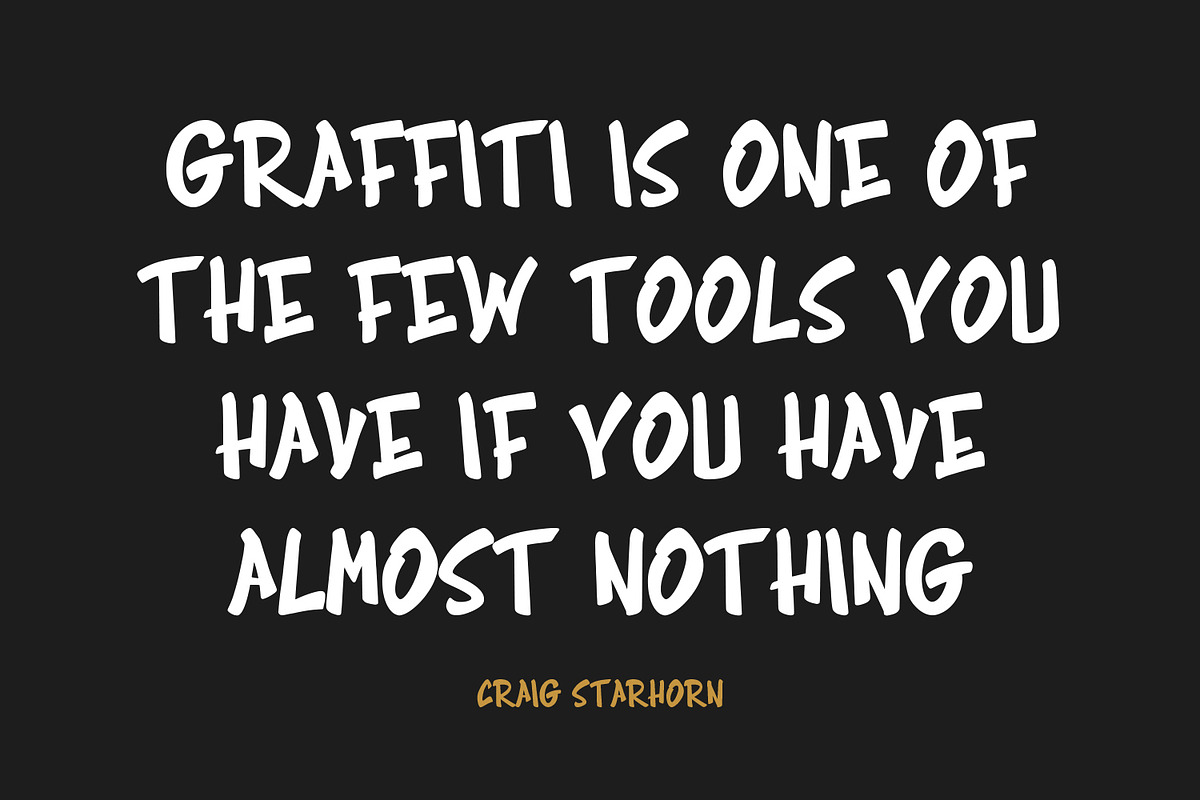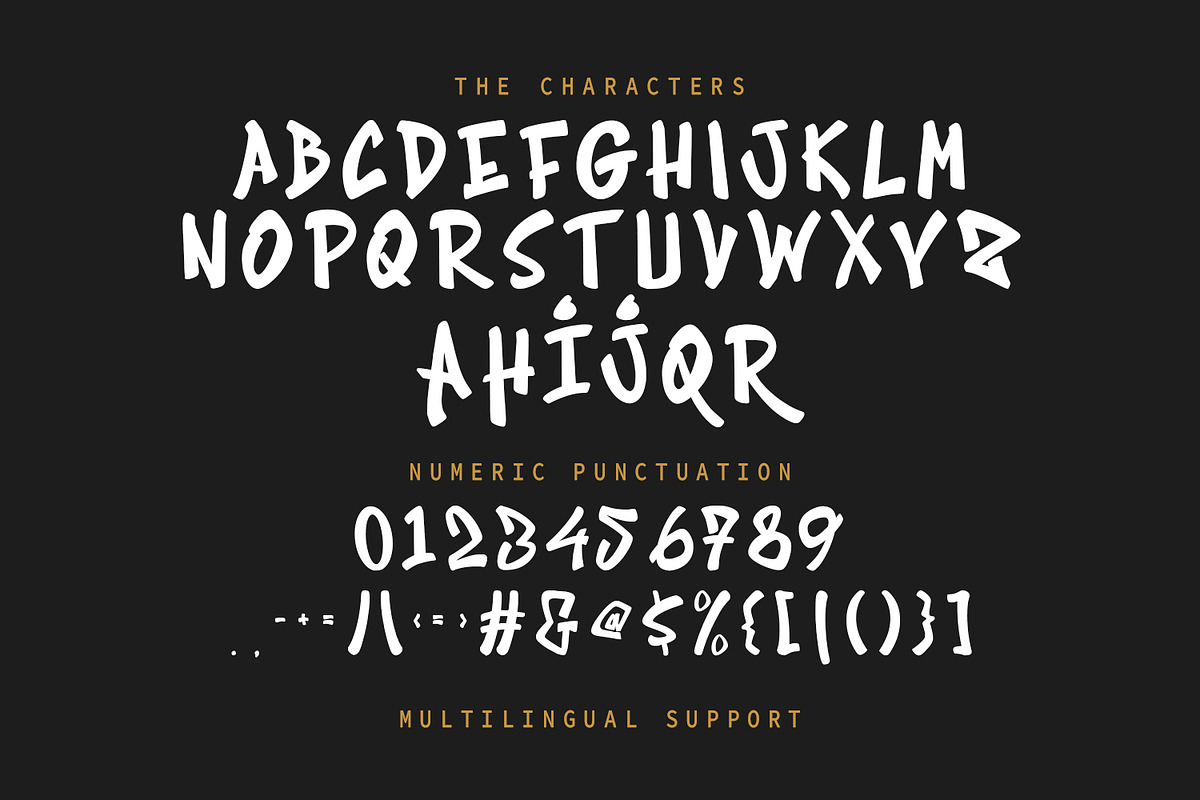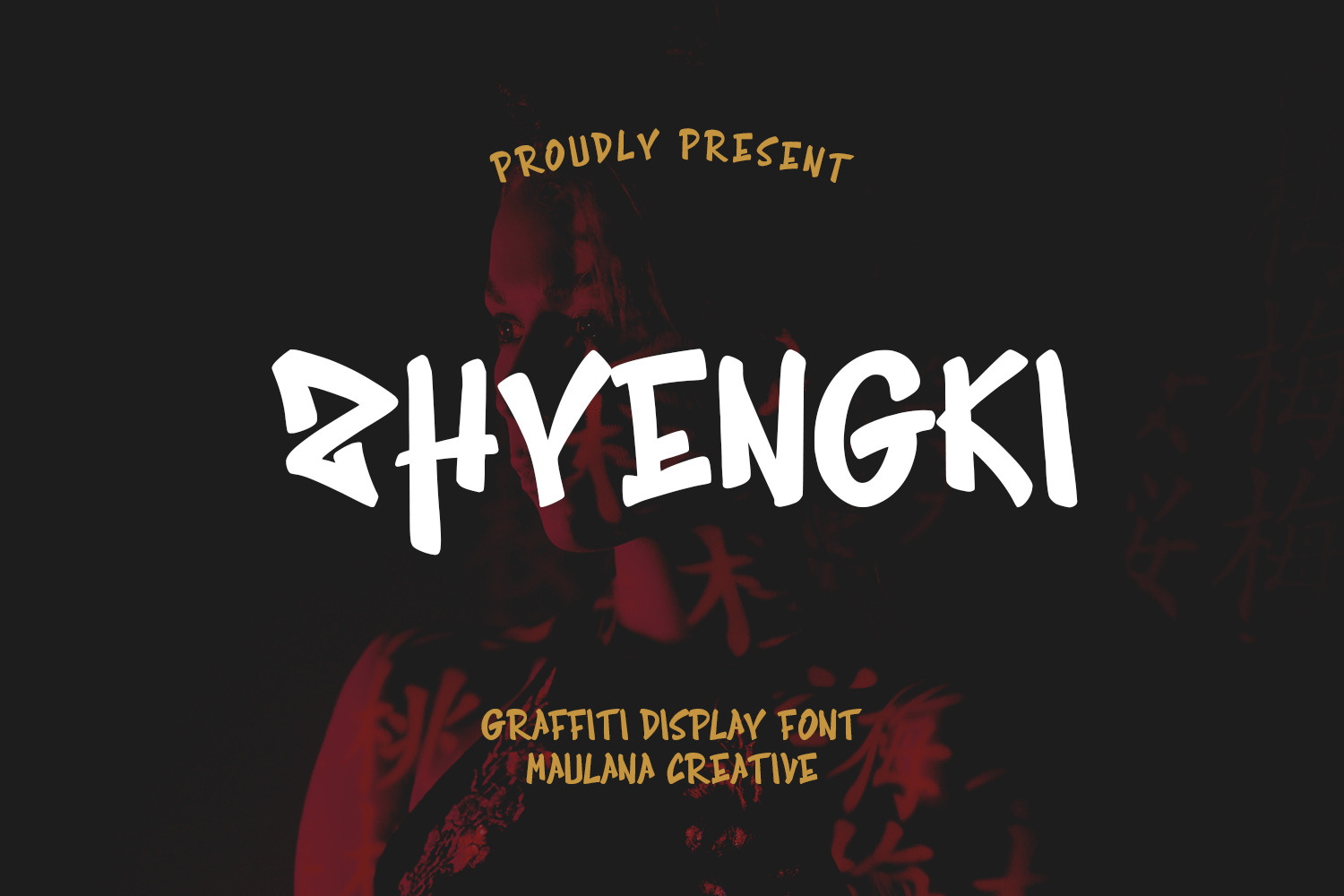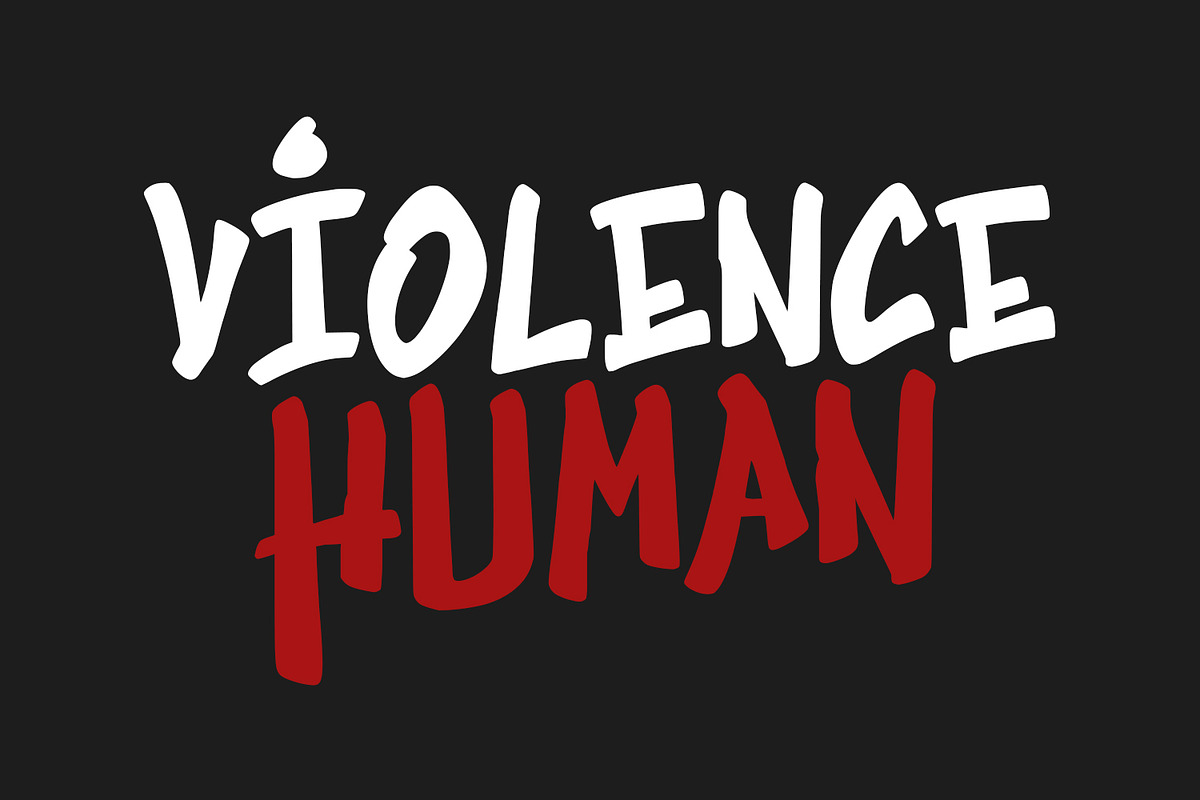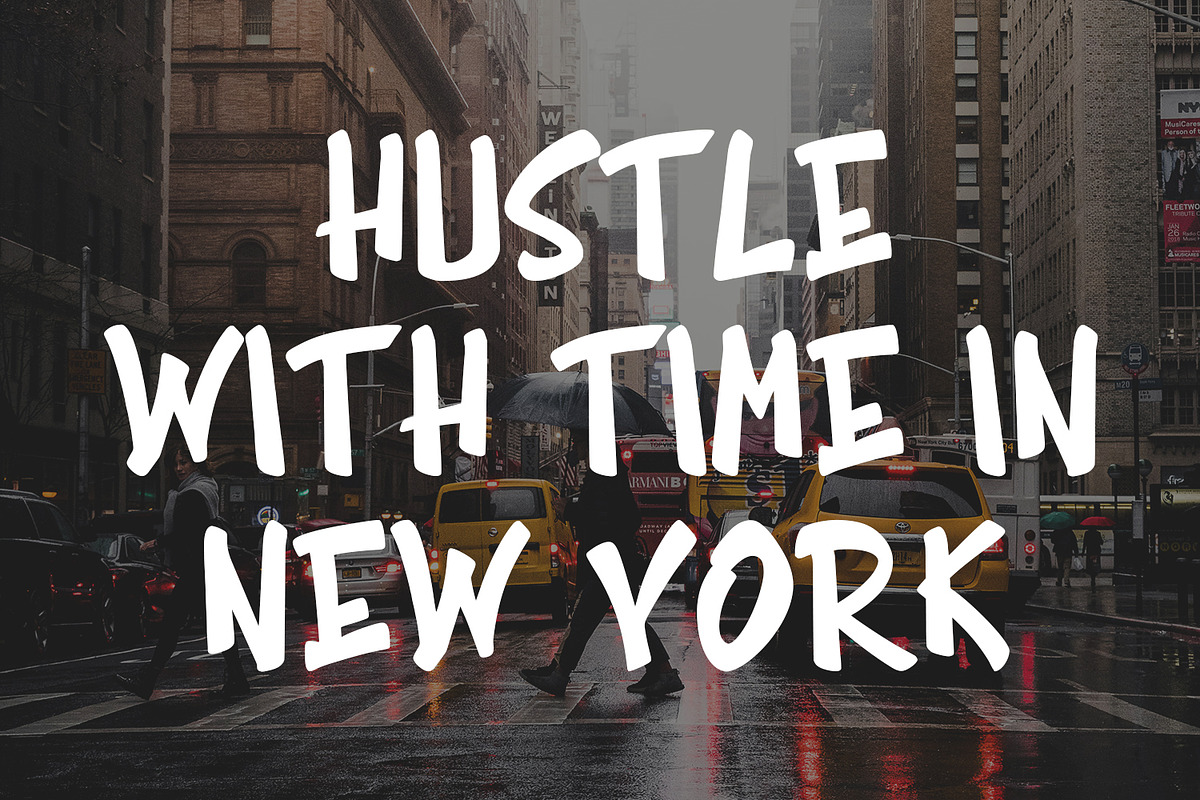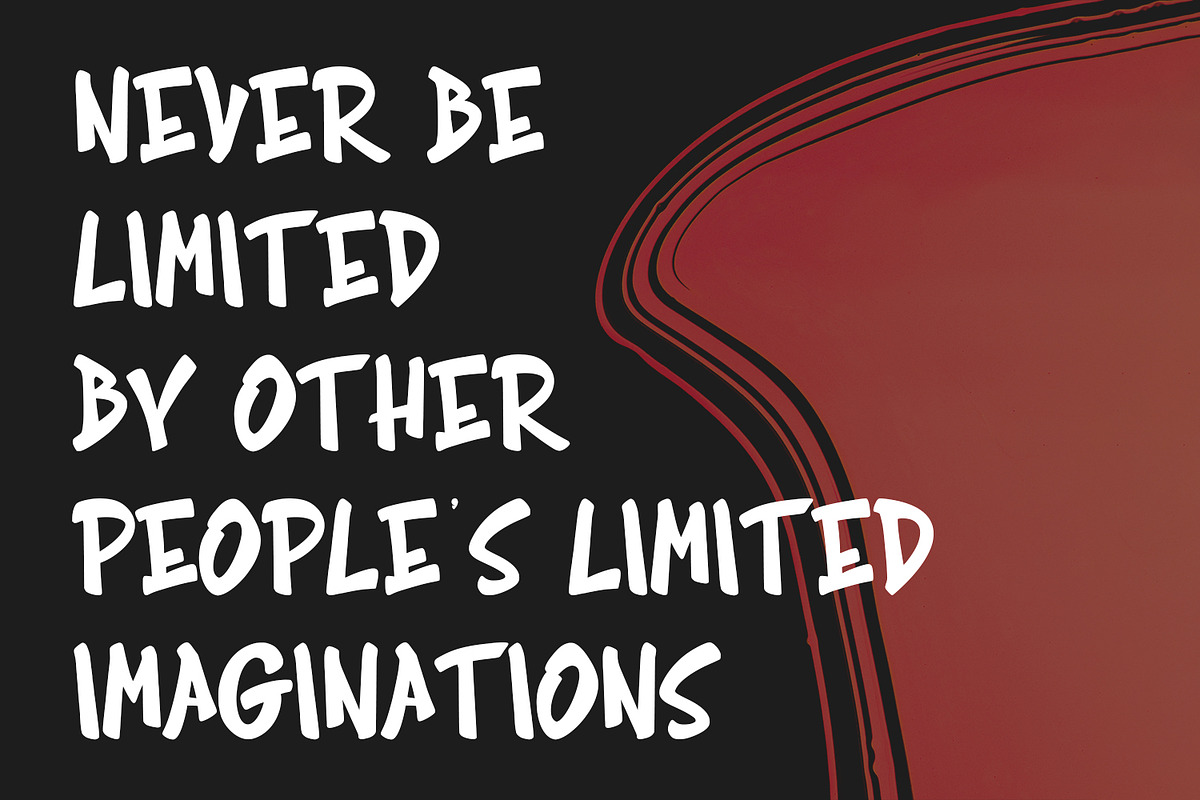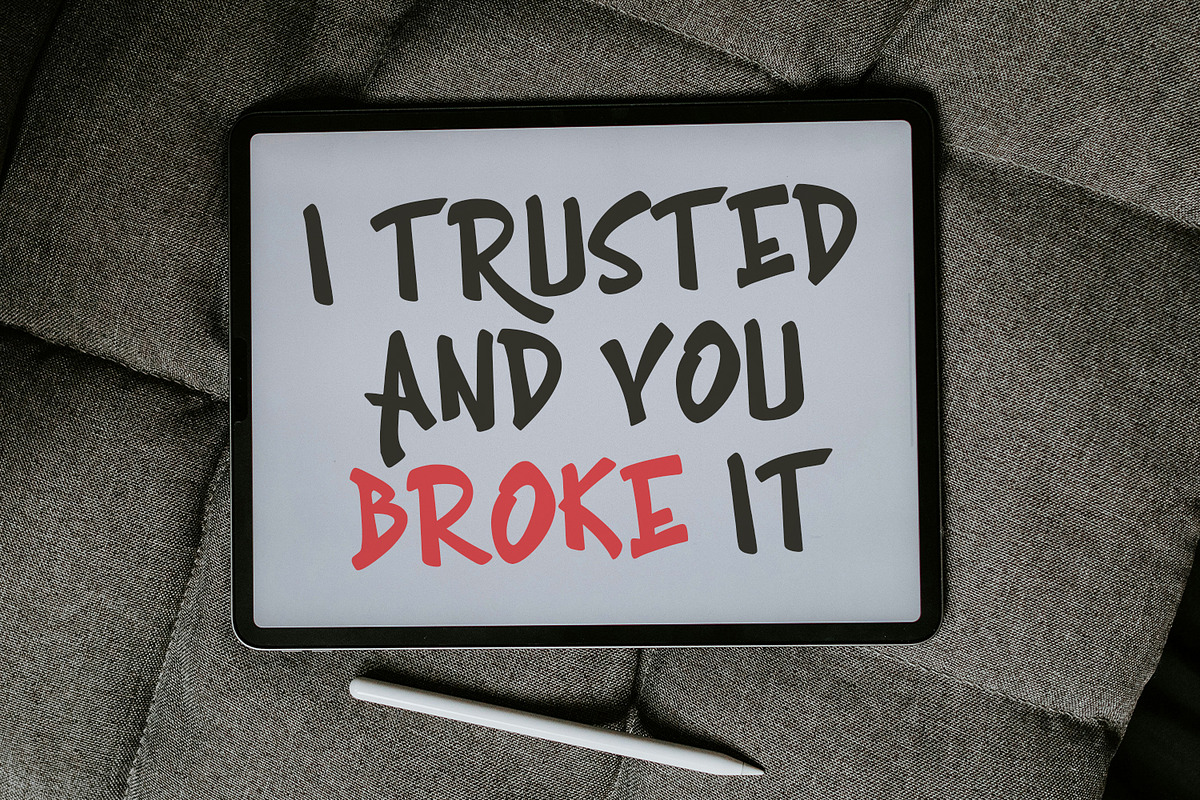
Zhyengki Graffiti Display Font
Zhyengki is a graffiti handwritten display font. With bold stroke, fun character with a bit of alternates. To give you an extra creative work. Zhyengki font support multilingual more than 100+ language. Make a stunning work with Zhyengki graffiti display font.